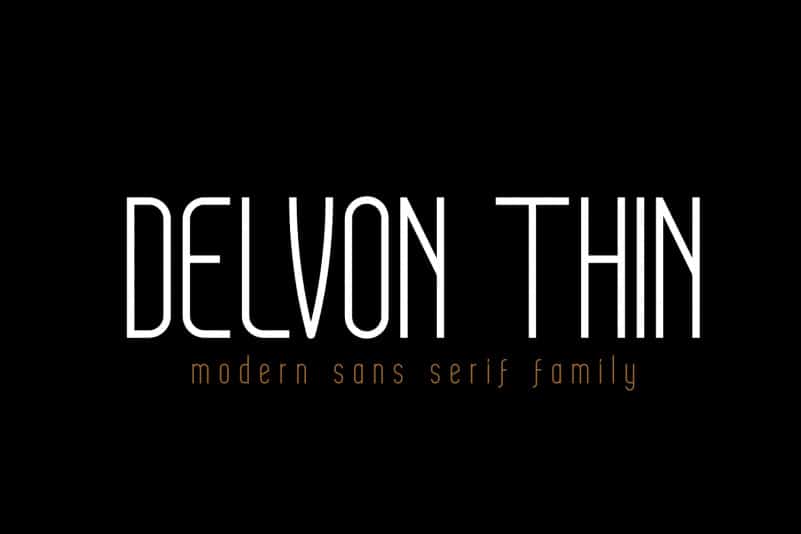
Delvon Sans Serif Font
Delvon Font  is a condensed typeface with both grotesque and cursive/humanist attributes.
Delvon Regular presents a clean, “grotesk” exterior. These characteristics, combined with a subtle stroke contrast and slightly extended x-height make for a distinct, and artisanal appearance.
The family was inspired by the condensed & sterile, yet quirky, sans serifs found on a lot of vintage apothecary labels & municipal street signage.
Both styles in the family are modest enough to work as secondary fonts, but also sport enough character to work as a primary sans face for wordmarks, logos, headers, etc.